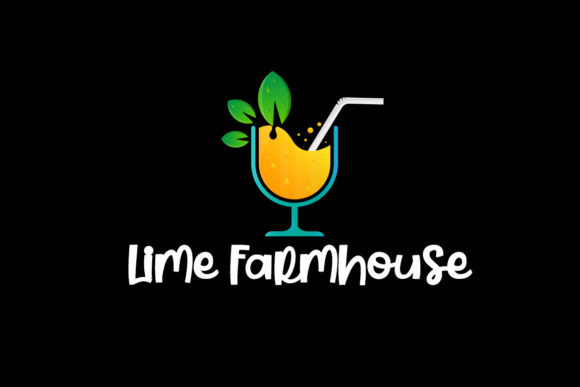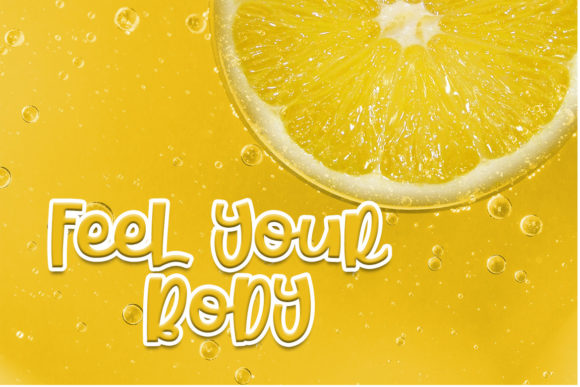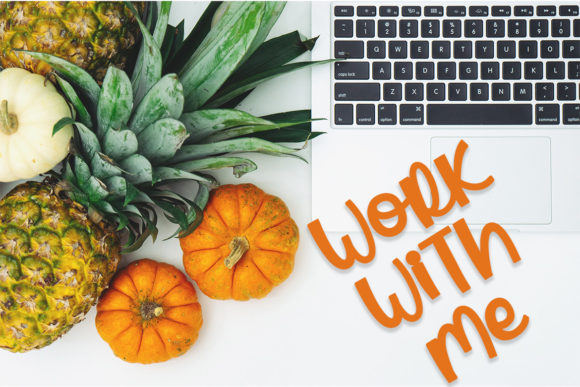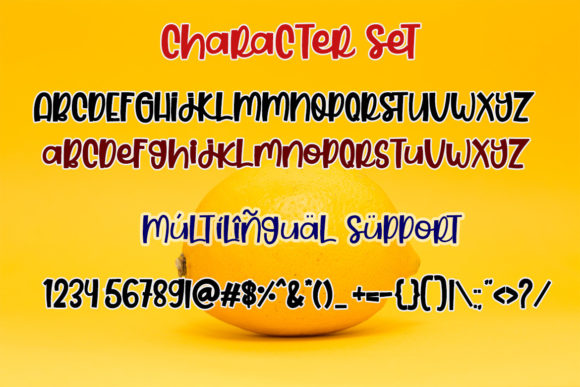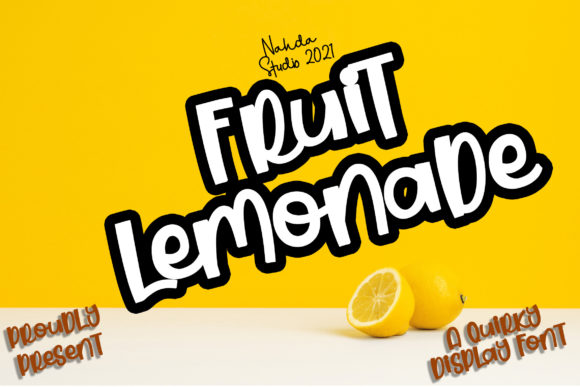
Fruit Lemonade Font: The Perfect Addition to Your Design Toolbox
Are you tired of using the same old fonts for your designs? Look no further than the Fruit Lemonade Font! This adorable and playful display font is perfect for adding a touch of whimsy to any project. Whether you’re a designer, crafter, or simply someone who loves to get creative, Fruit Lemonade is sure to become your new go-to font.
What is Fruit Lemonade Font?
Fruit Lemonade Font is a unique and eye-catching display font that is perfect for a variety of uses. Its cute and playful design makes it ideal for crafts, digital design, presentations, and even making greeting cards. The font’s friendly and approachable feel makes it perfect for projects that require a personal touch.
Characteristics of Fruit Lemonade Font
So, what makes Fruit Lemonade Font so special? Here are just a few of its key characteristics:
- Cute and Playful Design: Fruit Lemonade Font has a fun and playful design that is sure to add a touch of personality to any project.
- Display Font: This font is specifically designed as a display font, making it perfect for headlines, titles, and other attention-grabbing elements.
- Versatile: Fruit Lemonade Font can be used for a wide range of projects, from crafts and digital design to presentations and greeting cards.
- Easy to Read: Despite its playful design, Fruit Lemonade Font is easy to read and understand, making it perfect for projects that require a clear and concise message.
Uses for Fruit Lemonade Font
So, what can you use Fruit Lemonade Font for? The possibilities are endless! Here are a few ideas to get you started:
- Crafts: Use Fruit Lemonade Font to add a personal touch to your craft projects, such as scrapbooking, card making, and DIY gifts.
- Digital Design: Add a playful touch to your digital designs, such as social media graphics, blog posts, and website headers.
- Presentations: Use Fruit Lemonade Font to add visual interest to your presentations and make them more engaging.
- Greeting Cards: Create personalized and unique greeting cards for special occasions, such as birthdays, holidays, and weddings.
Why Choose Fruit Lemonade Font?
With so many fonts to choose from, why should you choose Fruit Lemonade Font? Here are just a few reasons:
- Unique Design: Fruit Lemonade Font has a unique and eye-catching design that is sure to stand out from the crowd.
- Versatile: Fruit Lemonade Font can be used for a wide range of projects, making it a great addition to your design toolbox.
- Fun and Playful: This font adds a touch of fun and playfulness to any project, making it perfect for designers and crafters who want to add a personal touch.
Tips for Using Fruit Lemonade Font
Here are a few tips for getting the most out of Fruit Lemonade Font:
- Use it for Headlines: Fruit Lemonade Font is perfect for headlines and titles, where its playful design can really shine.
- Experiment with Colors: Try pairing Fruit Lemonade Font with different colors and backgrounds to create a unique and eye-catching design.
- Mix and Match: Don’t be afraid to mix and match Fruit Lemonade Font with other fonts and design elements to create a truly unique look.
In conclusion, Fruit Lemonade Font is a fun and playful display font that is perfect for adding a touch of personality to any project. Its cute and playful design makes it ideal for crafts, digital design, presentations, and making greeting cards. With its versatility, ease of use, and unique design, Fruit Lemonade Font is sure to become your new go-to font. So why not give it a try and see what amazing projects you can create?